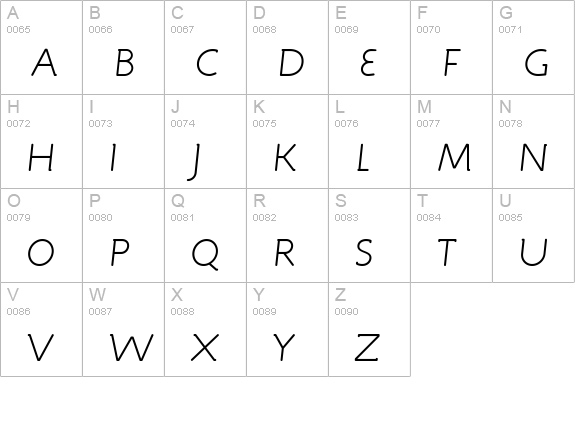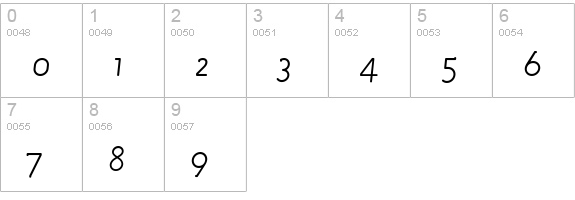
Engine-LightItalic is a sleek and modern font that exudes sophistication and elegance. With its italicized design, this typeface adds a touch of style to any project. The slim and delicate strokes of Engine-LightItalic create a sense of refinement and grace, making it perfect for conveying a sense of luxury or sophistication. What makes Engine-LightItalic even more appealing is that it is available for free download at FontsMarket.com. This means that you can easily access this stunning font without any cost, making it a valuable addition to your font collection. Whether you're working on a branding project, a website design, or any other creative endeavor, Engine-LightItalic is sure to elevate your work with its timeless beauty and elegance. Download it now and see for yourself the impact it can make on your designs.